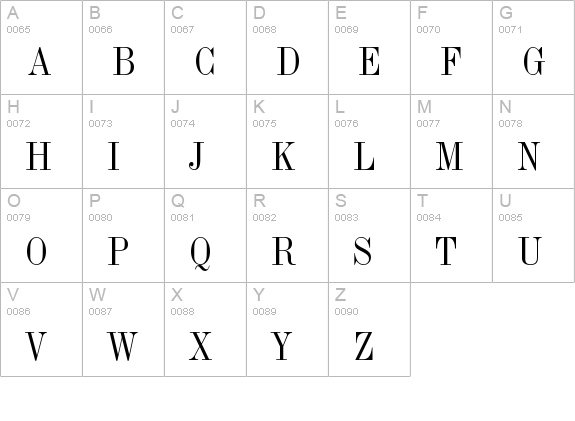
Indy 17 Normal Font Details
Indy 17 Normal is the standard, neutral variant in the Indy typeface family \xE2\x80\x94 well suited to general body text, paragraphs, and standard typographic work.
Introducing Indy 17 Normal, a classic and versatile font that effortlessly blends elegance with a touch of modernity. With its clean lines and balanced proportions, this typeface exudes a timeless charm, making it suitable for a wide range of design projects. Indy 17 Normal offers a perfect balance between legibility and uniqueness, making it ideal for both print and digital media. Whether you're designing a logo, creating a magazine layout, or crafting a website, this font will add a touch of sophistication and professionalism to your project. What makes Indy 17 Normal even more appealing is that it is freely available to download at FontsMarket.com. This means that you can unleash your creativity without any restrictions or limitations, making it a valuable asset for both personal and commercial use. With its extensive character set, including uppercase and lowercase letters, numerals, punctuation marks, and special symbols, Indy 17 Normal offers endless possibilities for creating eye-catching and engaging designs. Its smooth curves and well-defined shapes ensure that each letter stands out with clarity, enhancing readability across various sizes and mediums. Indy 17 Normal is designed with precision and attention to detail, ensuring a smooth and seamless typing experience. Its compatibility with different software and operating systems allows for seamless integration into your design workflow, making it an essential tool for designers, artists, and creatives alike. Whether you're a seasoned professional or just starting your design journey, Indy 17 Normal is a font that will inspire and elevate your work. Its timeless appeal and the fact that it is freely available to download at FontsMarket.com make it a must-have addition to your font library. So, unleash your creativity and download Indy 17 Normal today to bring your designs to life with elegance and style.